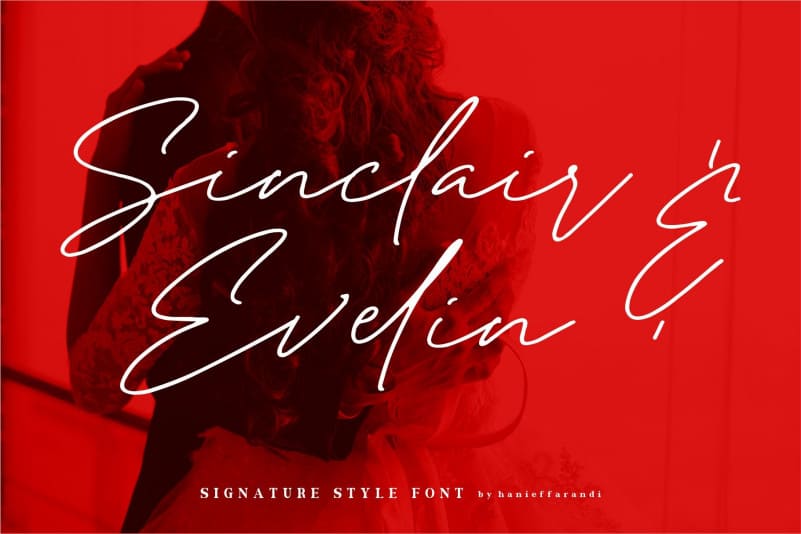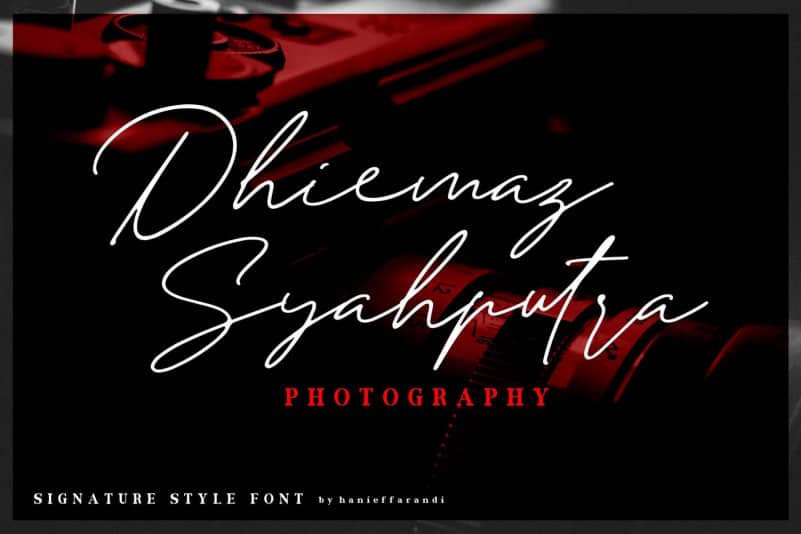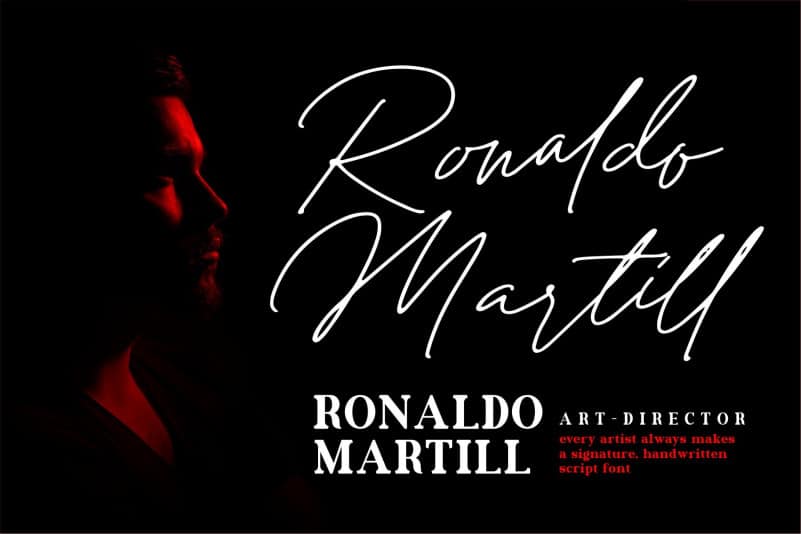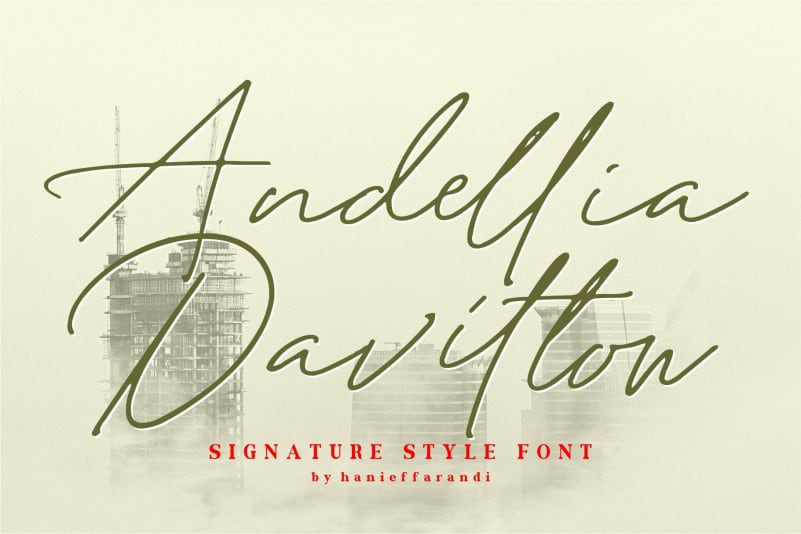
Thanks for checking out Andellia Davilton Handwritten Font. Andellia Davilton a very beautiful and unique Monoline Script typeface. It’s designed and shared by Hanief Farandi. This font is perfect for creating signature logos and watermarks for photography studio or wedding invitation, Lable, Logo, Magazine best for initial or branding logo signature.
Andellia Davilton